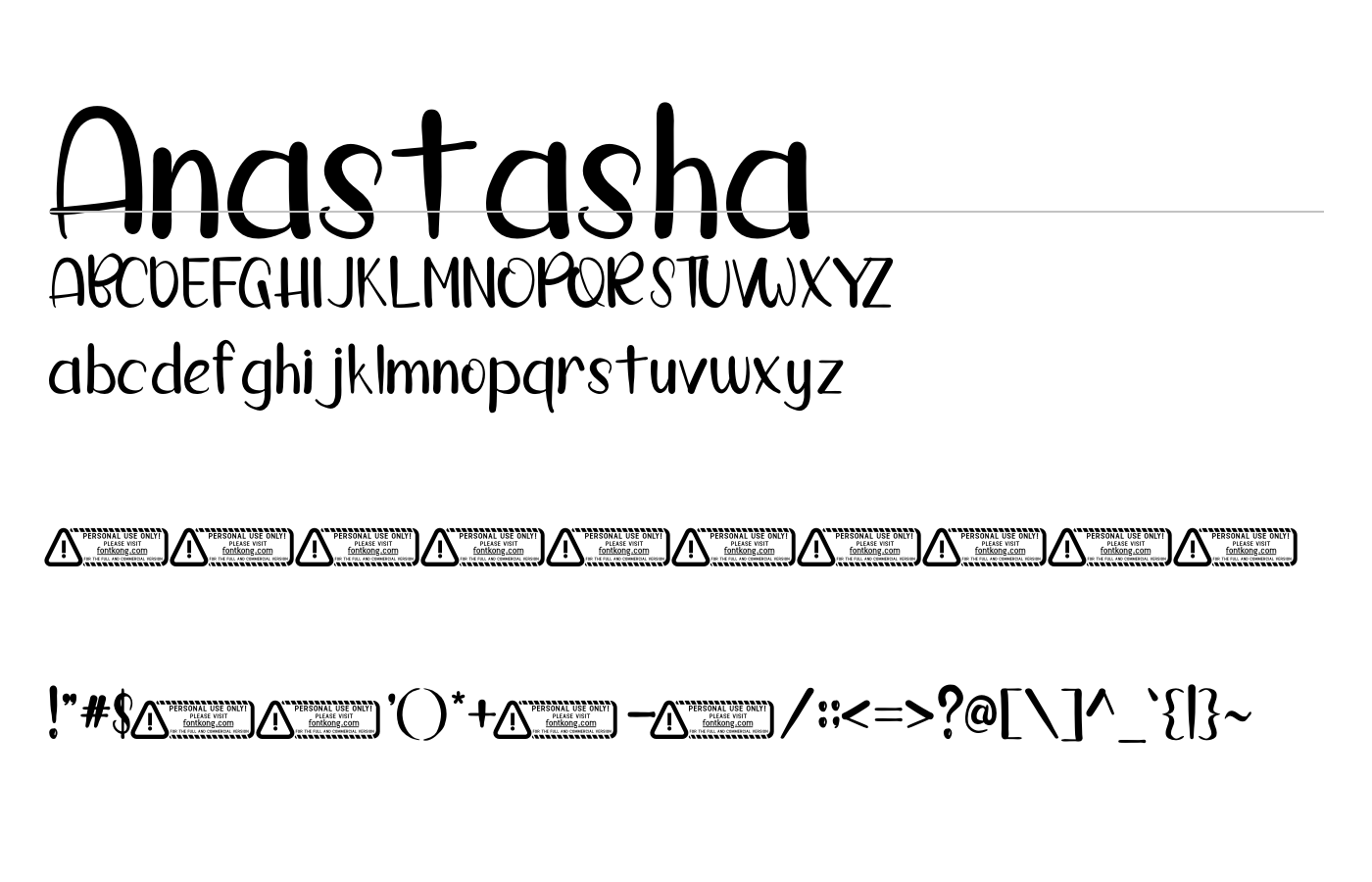
Anastasha is a playful and friendly handwritten font with a casual, whimsical feel. Its tall x-height, uneven stroke widths, and quirky letterforms make it perfect for creative, informal designs like invitations, children’s books, and fun branding. This font adds a personal, approachable touch wherever a lighthearted and unique style is desired.
Anastasha Font
About Anastasha Font
| Font family | Anastasha Font |